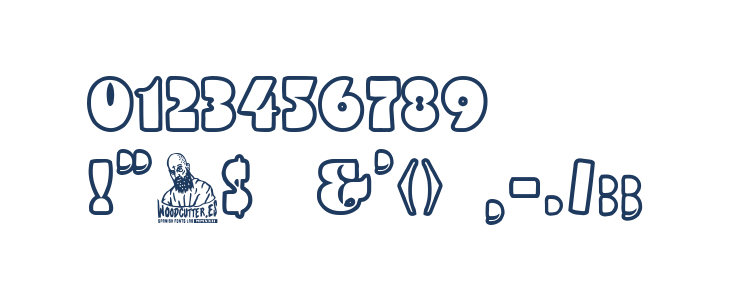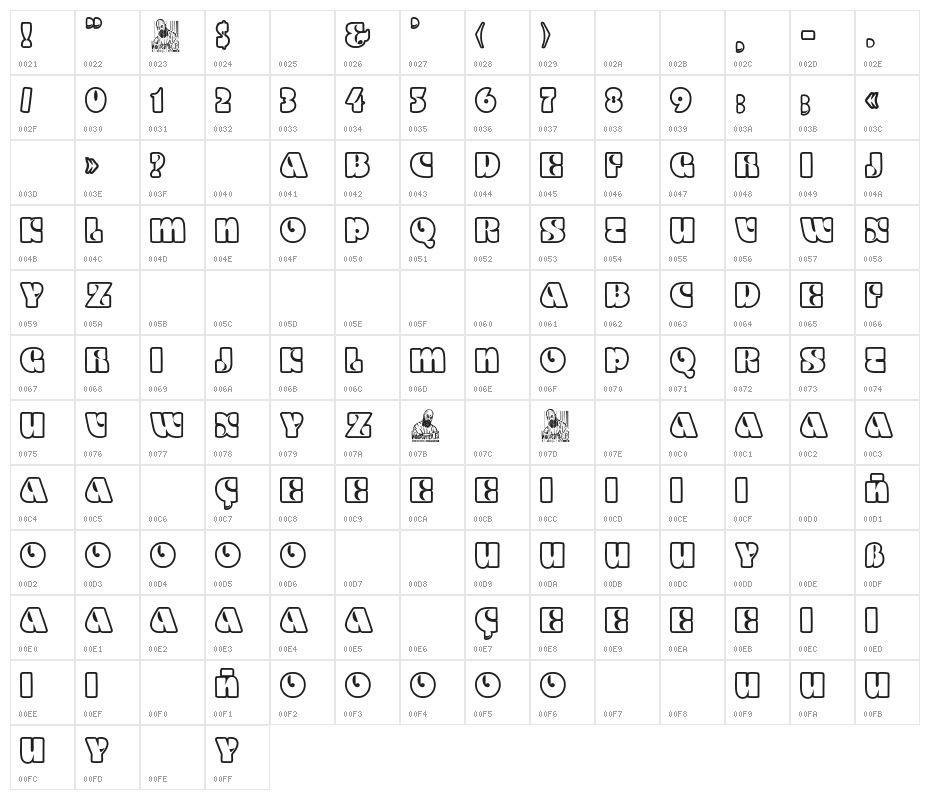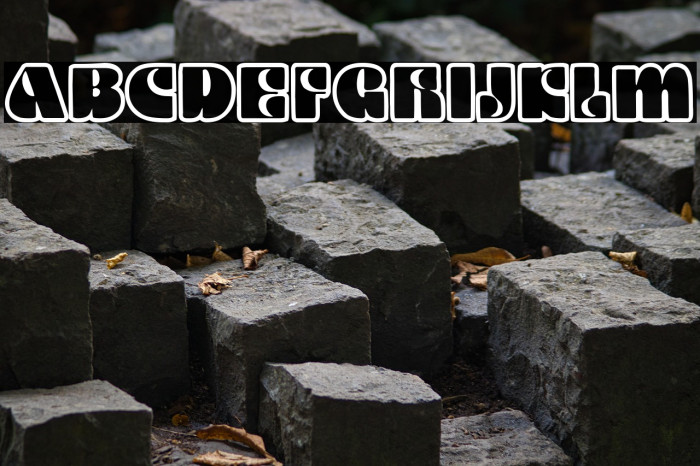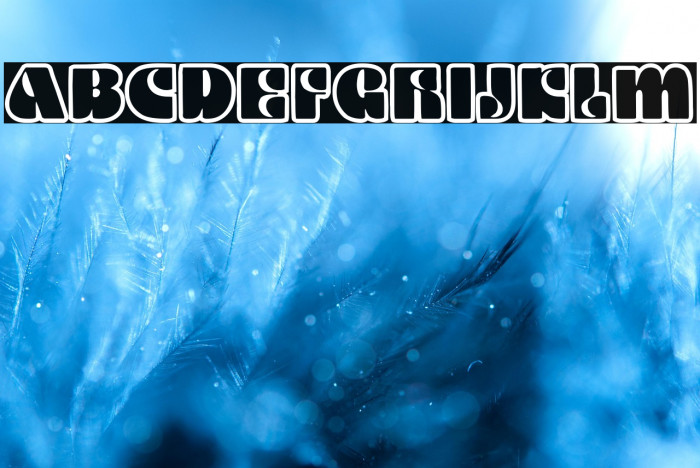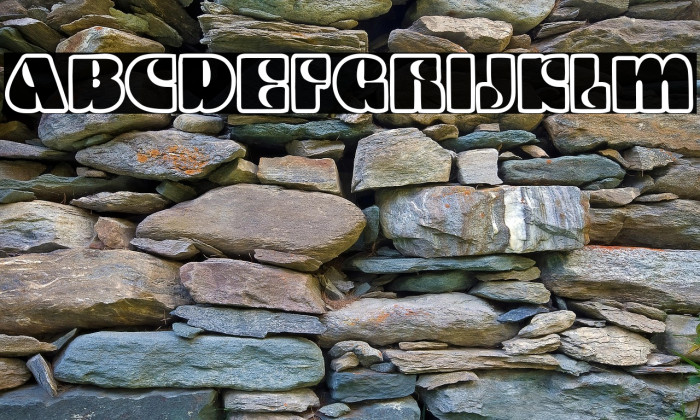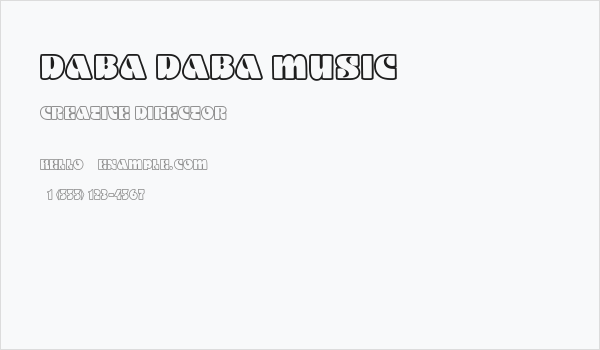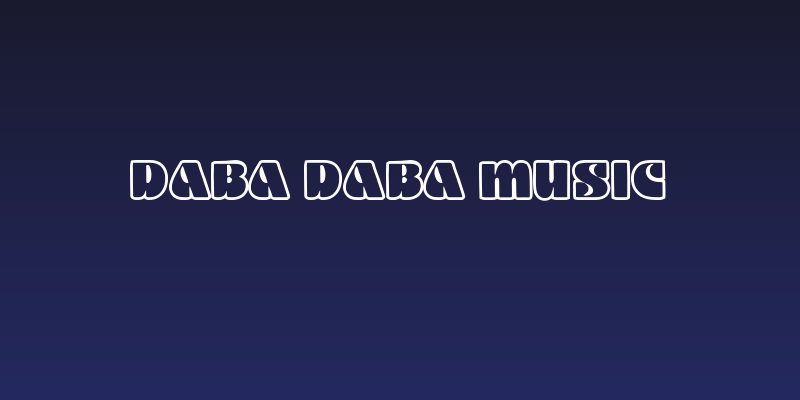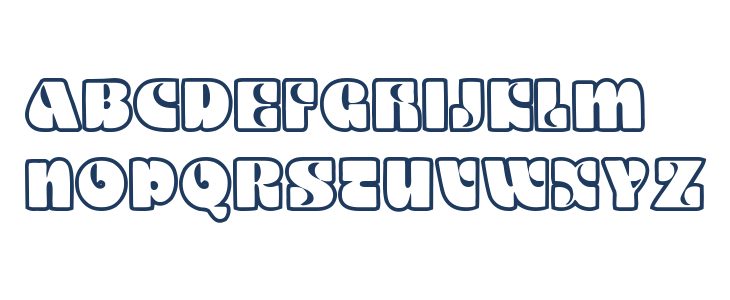
Daba Daba Music Font
Daba Daba Music Description
This font features a bold and playful design with thick, rounded edges and a unique outline style. The characters are wide and have a bubbly appearance, giving them a fun and energetic vibe. The uppercase and lowercase letters maintain a consistent style, with each character exhibiting a strong presence. The numbers and special characters are equally bold, ensuring a cohesive look across all elements. This font's distinctive outline adds a layer of depth, making it stand out in any design.
| Width | Expanded |
| Overall Style | Playful, Energetic |
| Use Case | Logos, Posters, Headlines |
| Proposed Projects | Ideal for children's books, playful branding, party invitations, and music festival posters. |